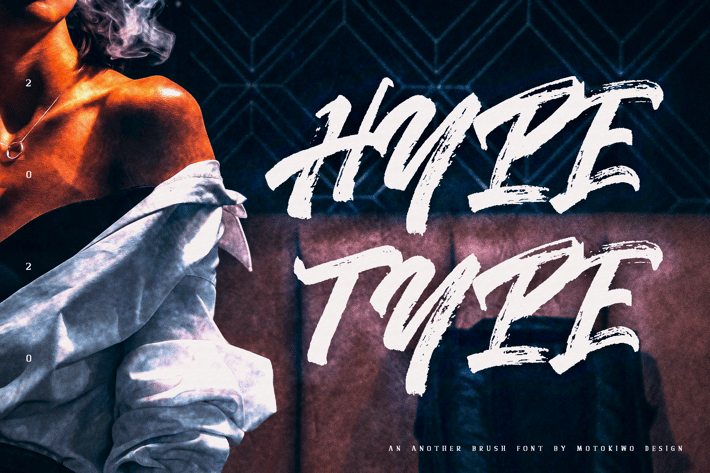
Hypetype - Painted Brush Font
Motokiwo
Hypetype is hyperactive painted brush font with natural texture. It will give something cool into any design. Hypetype is good for poster, headline, etc and it comes with all caps, number, also punctuations.
Give more hipster style to your projects with this cool typeface, Hypetype